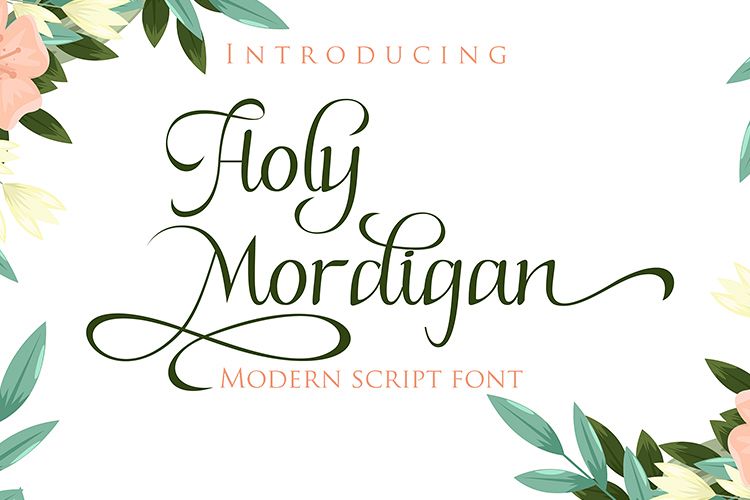
Holy Mordigan
Holy Mordigan is a modern script font that is inspired by luxury. Holy Mordigan font makes every design created has an elegant aura. so it has its own value for everyone who sees it.
Holy Mordigan also has a variety of alternate options that can be used.